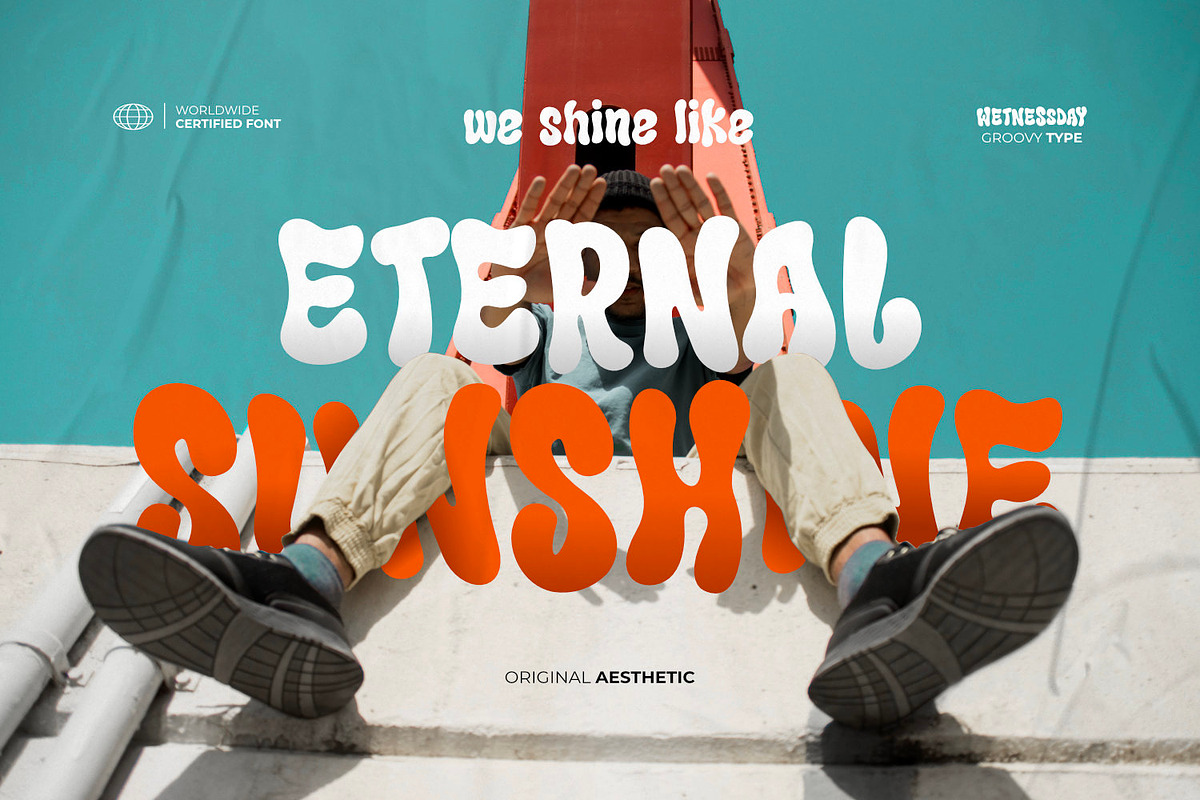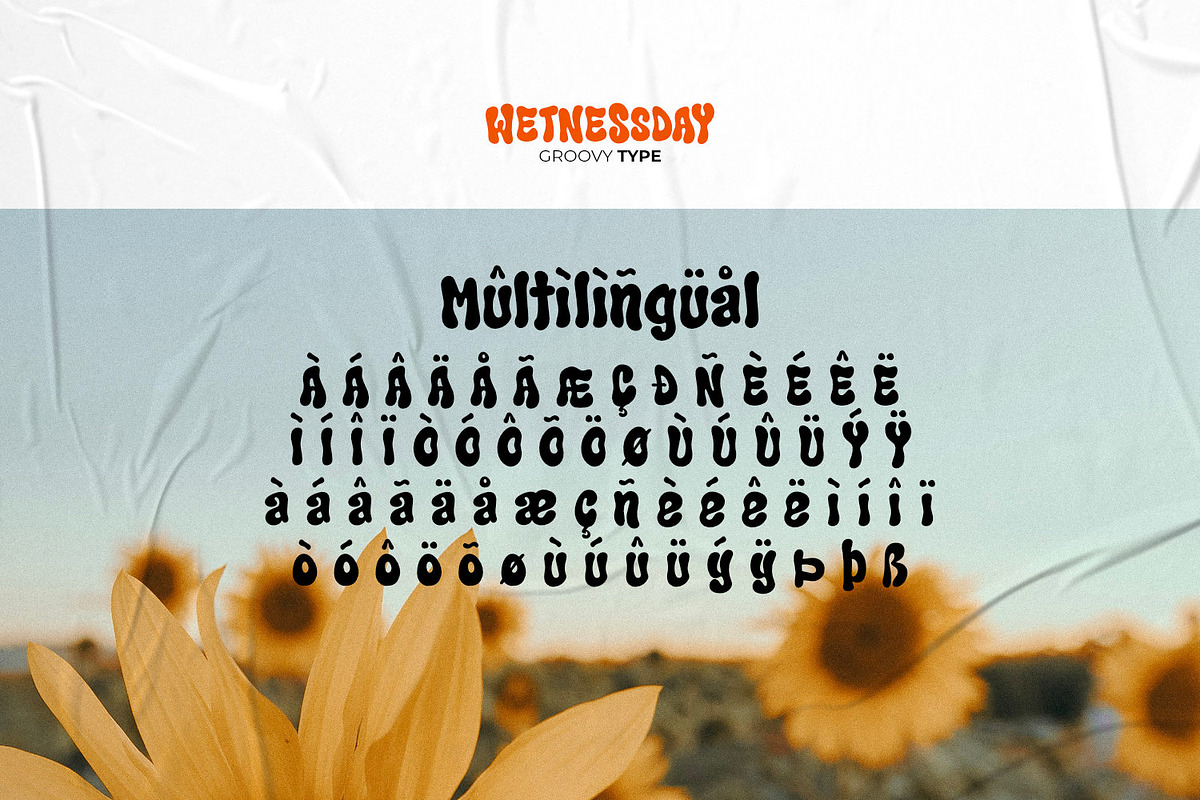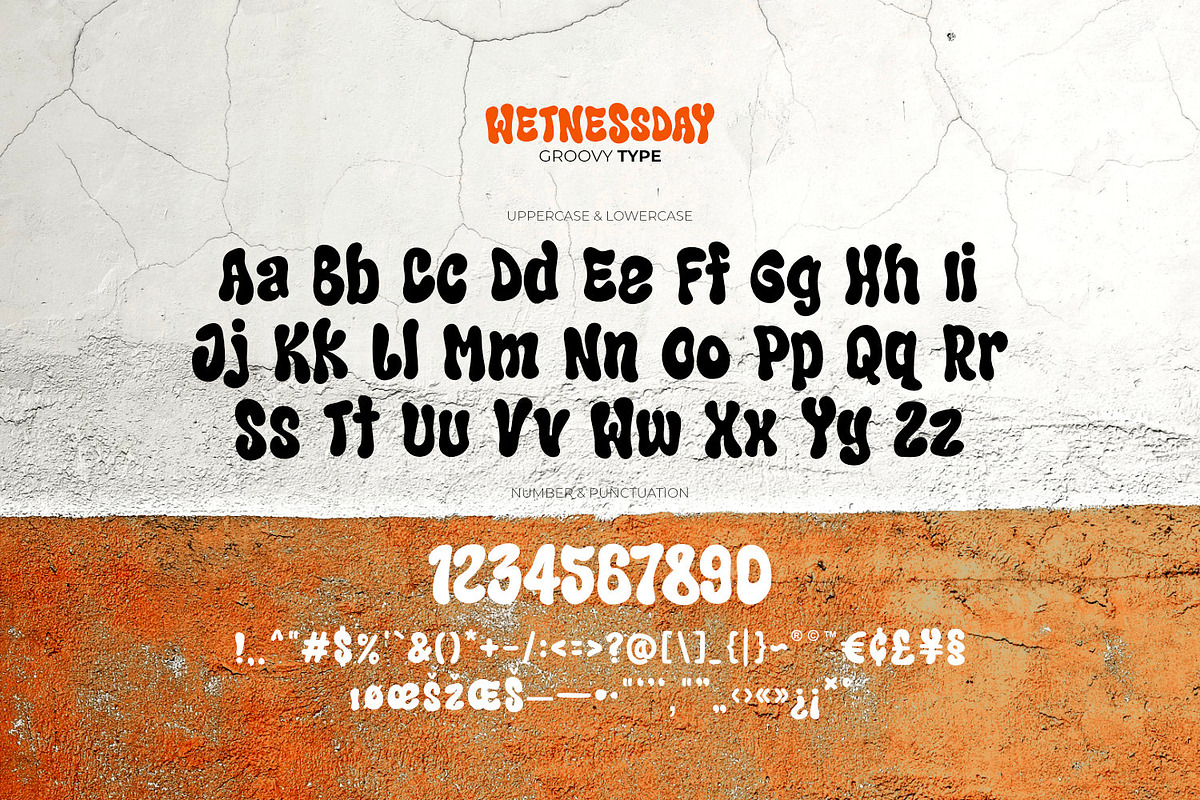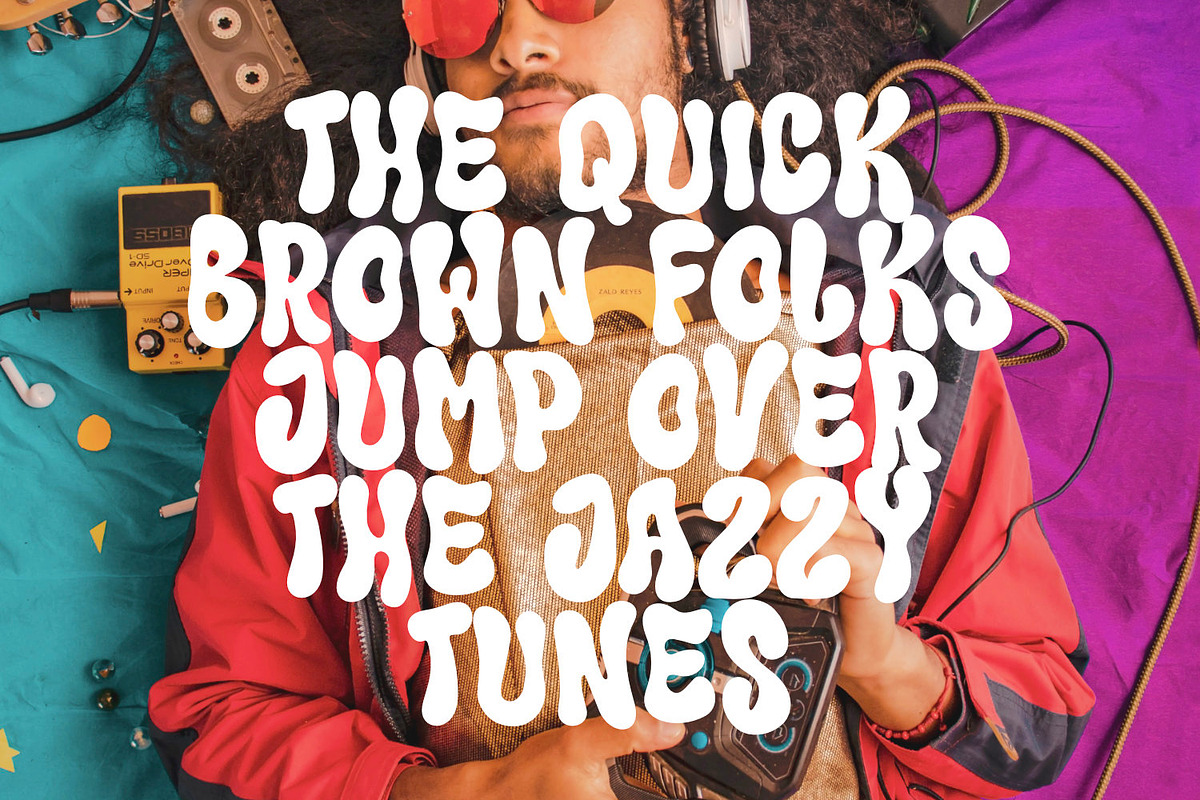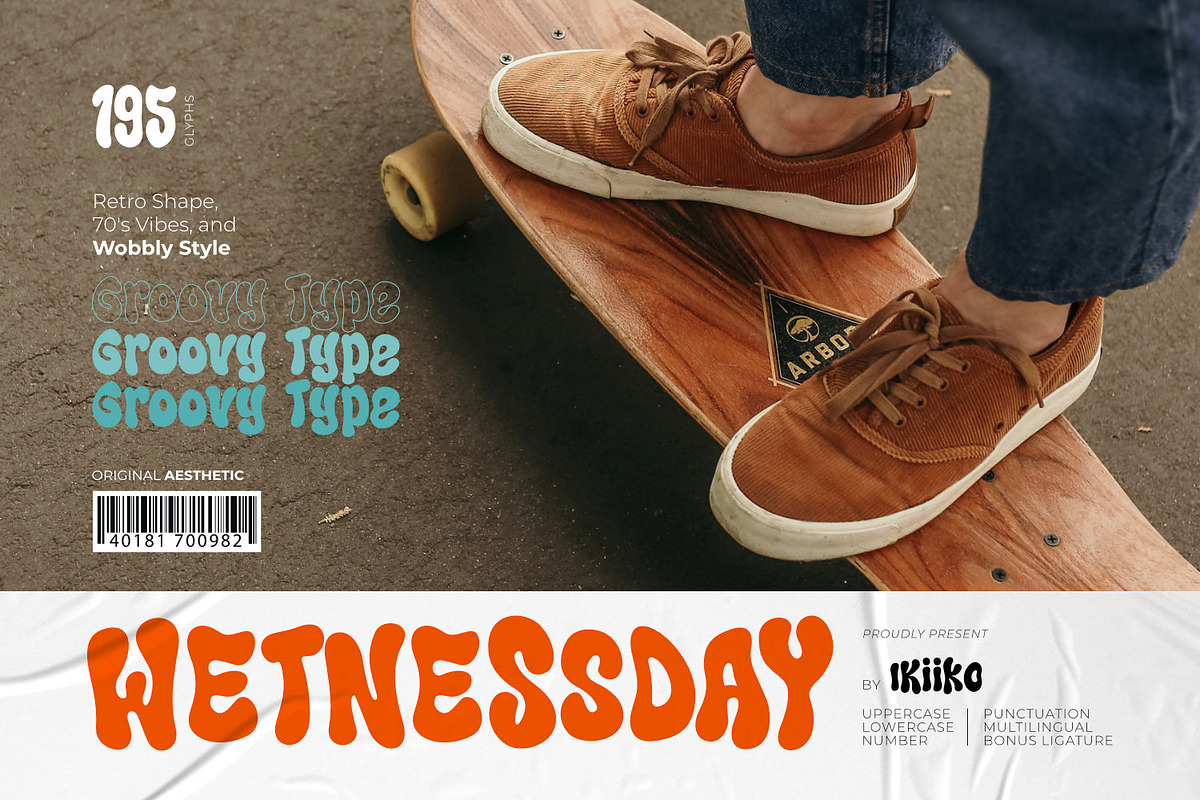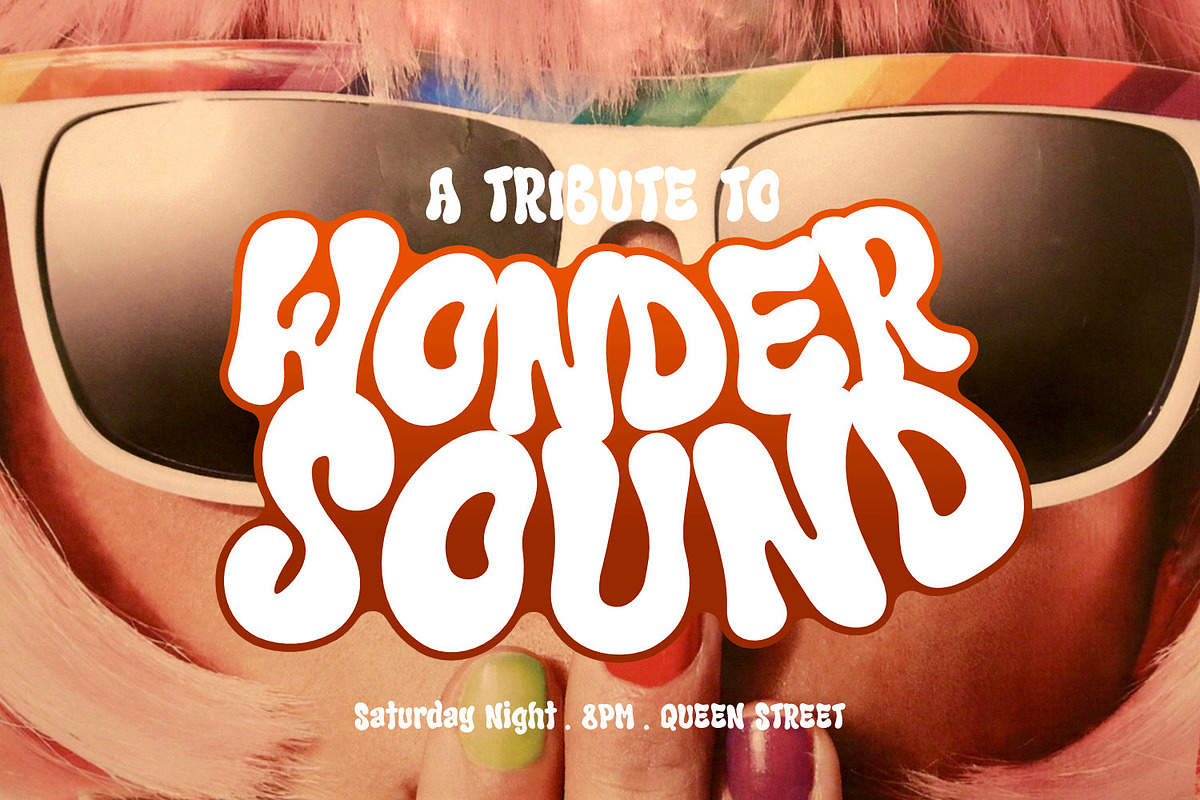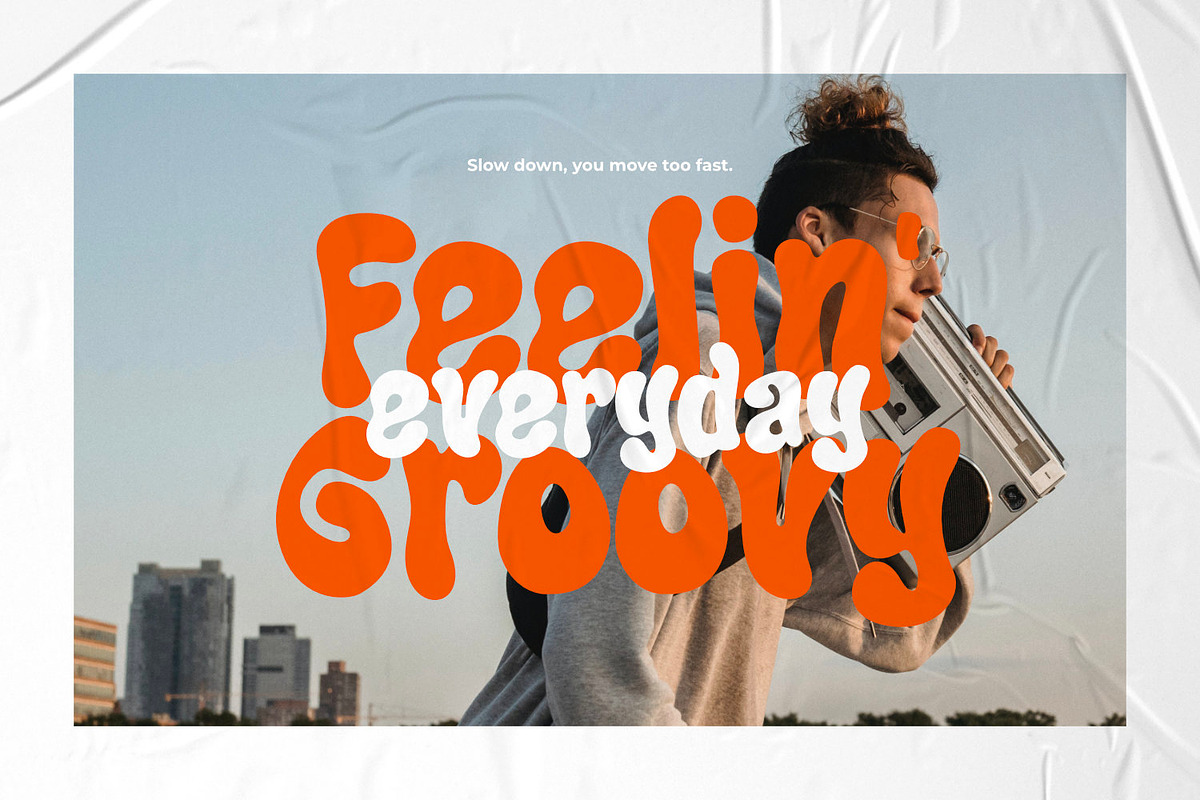
Wetnessday - Groovy Type
Proudly present Wetnessday - Groovy Type, created by ikiiko.
This type is inspired by 70's typefaces with psychedelic touches and groovy vibes. Wetnessday has a bold and wavy font with expressive curves, so it looks playful and fun. This type is very suitable for making a poster, magazine layout, brand logo, sleeve cover, party flyer, quotes, or simply as a stylish text overlay to any background image.
- Bonus Ligature